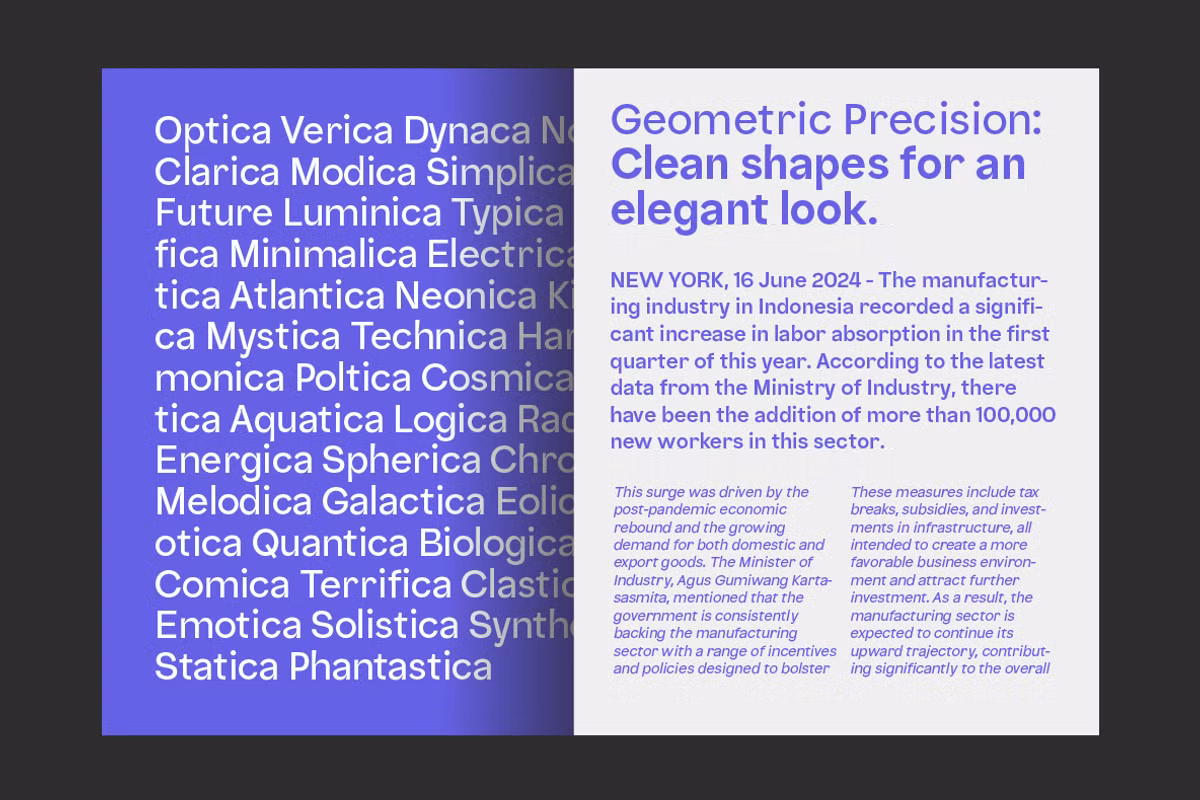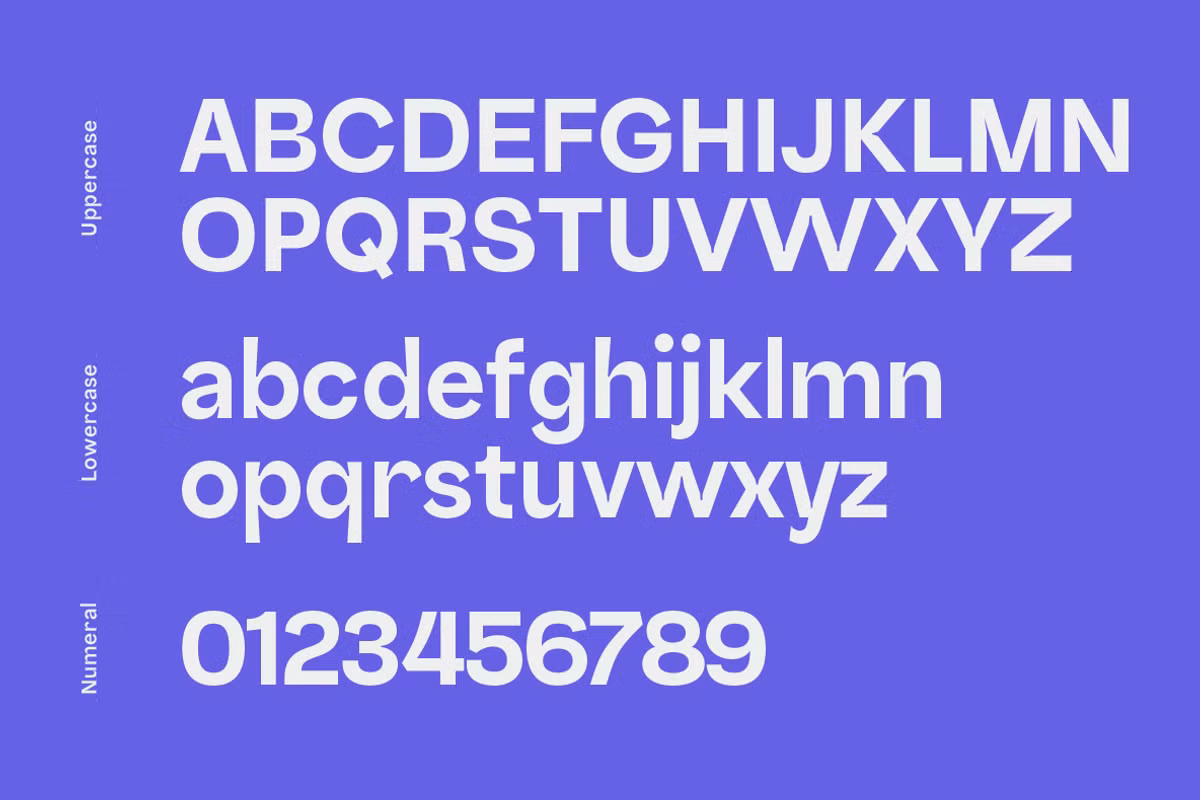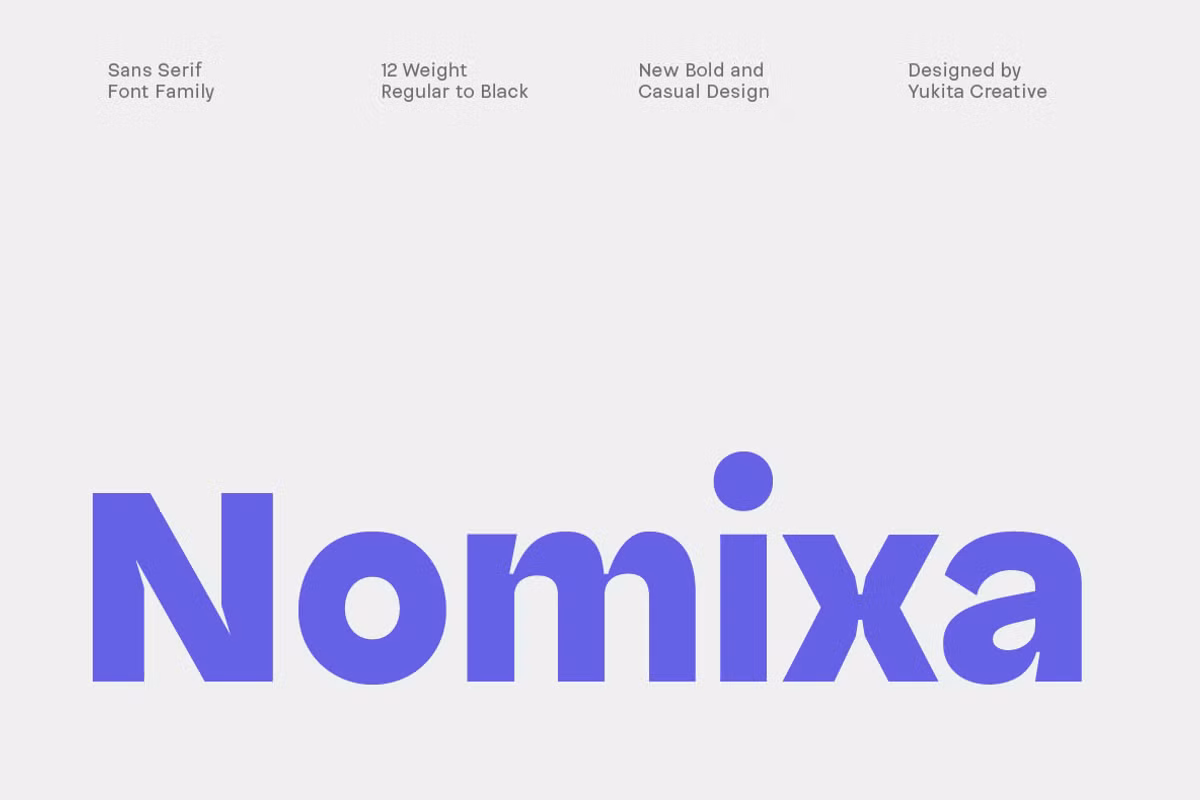
Nomixa is a sans-serif typeface which aims in delivering fantastic text displays from your creative designs. By being able to set the type in 12 varying weights, such as italics, Nomixa is highly versatile for designing bold, attention-grabbing and contemporary fonts. This font is good for the projects which need a robust but non-professional look, thus it is a good addition to the font library of every designer.
Nomixa Sans Serif Font Family